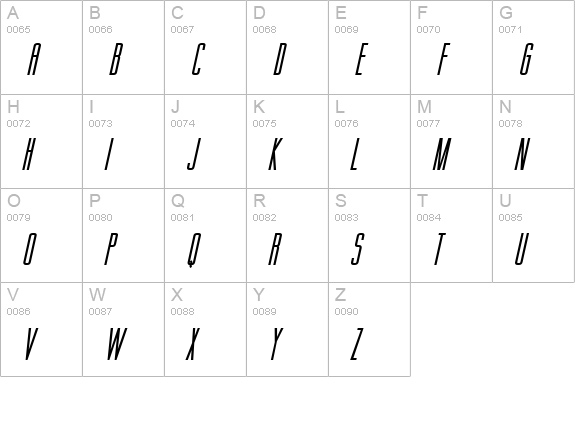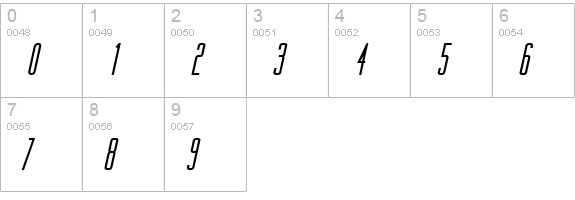
Gorgio BoldItalic font is a striking and sophisticated typeface that exudes elegance and modernity. Its bold yet graceful design makes it perfect for creating eye-catching headlines, logos, and branding materials. The italicized style adds a touch of flair and sophistication to any project. And the best part? Gorgio BoldItalic font is available for free download at FontsMarket.com. Whether you're a designer looking to enhance your creations or a business owner in need of a polished and professional font, Gorgio BoldItalic is the perfect choice. Don't miss out on this opportunity to elevate your designs with this stunning typeface. Download Gorgio BoldItalic today and let your creativity shine!